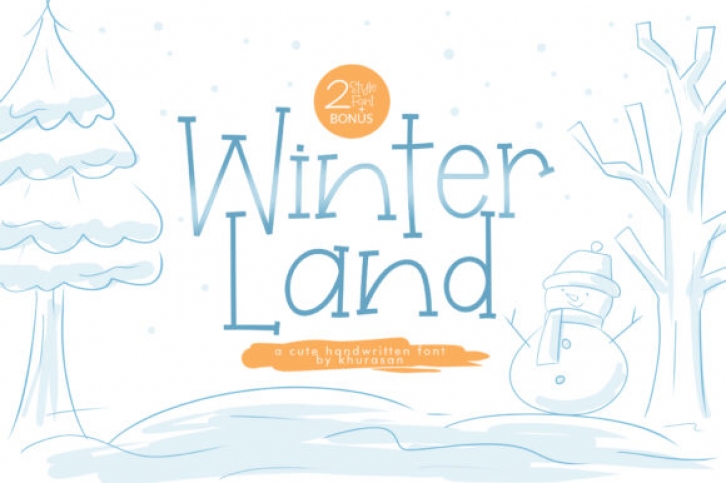
The Winterland is a fun display typeface. It includes awesome characters in 2 different styles: regular and slant.
It’s perfect for name cards, posters, logos, magazines, covers, and even large-scale artwork.